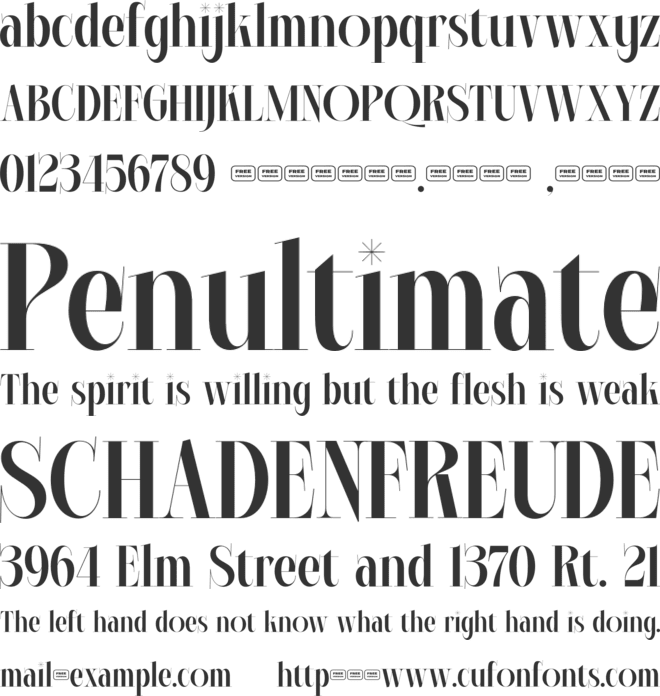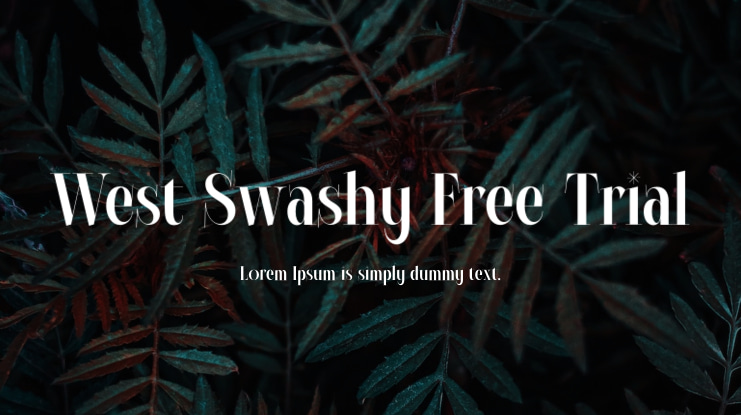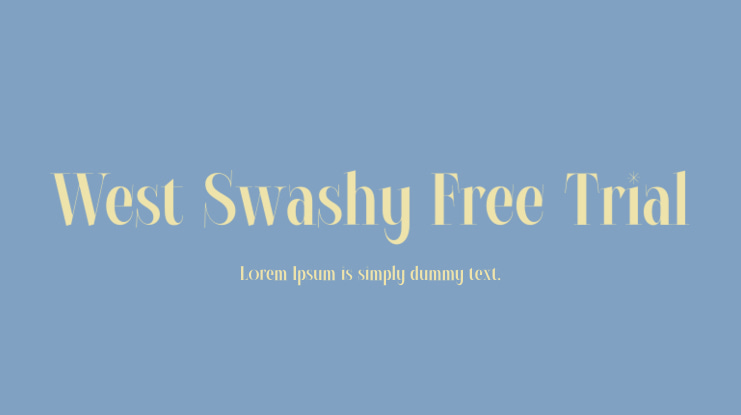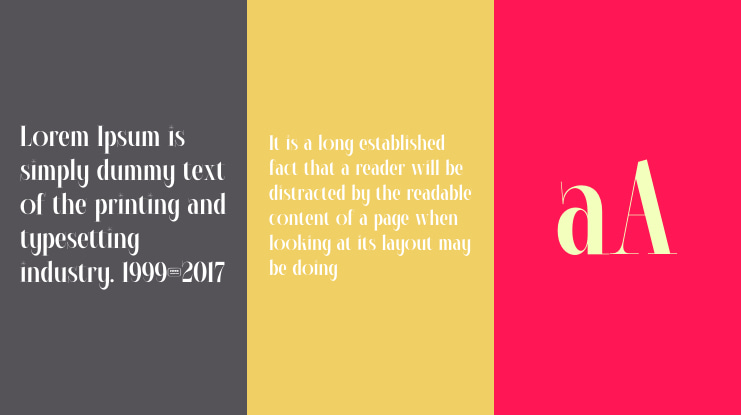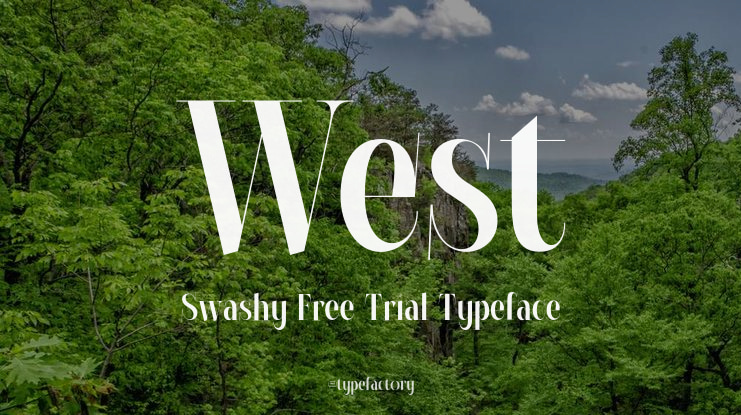
West Swashy Free Trial Font
Experience sophistication and versatility with the stylish typeface "West Swashy". This serif font combines modern elegance with refined letterforms to bring a contemporary charm to your design projects. Perfect for luxurious branding, editorial layouts, invitations, and more, "West Swashy" strikes the ideal balance between elegance and readability. Whether you're creating logos, book covers, certificates, or stationery, this font's timeless allure will captivate your audience. Elevate your designs with the modern and sleek style of "West Swashy" and let your typography speak volumes. Download the full version here: [link to Type Factory] or [link to Creative Fabrica].